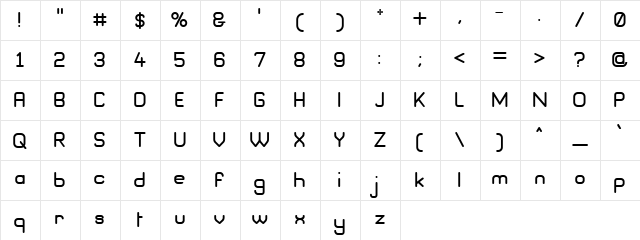
Kasprowich Warn Regular
Design Context for Kasprowich Warn Typeface
Kasprowich Warn offers clean, dependable letterforms without strong stylistic allegiance, making it a practical choice for designers who need flexibility.